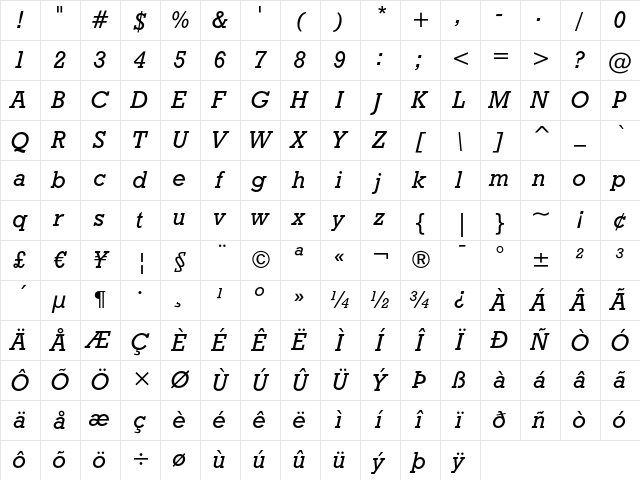
Geometric Slabserif 712 Medium Italic
Complete Geometric Slabserif 712 Medium Italic glyph index. Displaying only characters natively supported by Geometric Slabserif 712 Medium Italic font.
Design Context for Geometric Slabserif 712
Geometric Slabserif 712 features prominent, blocky serifs that give it a confident, grounded presence - equally at home in editorial settings and bold branding work. The slanted form adds forward momentum and visual energy.
Pro Tip: Use Geometric Slabserif 712 for headlines and subheadings where its slab serifs can make an impression. It also holds up well in mid-size body copy thanks to its sturdy construction.